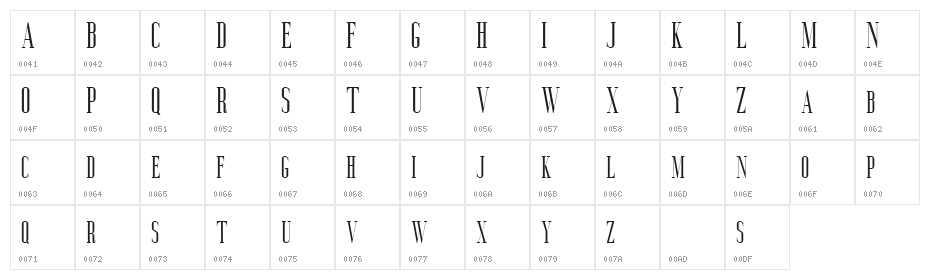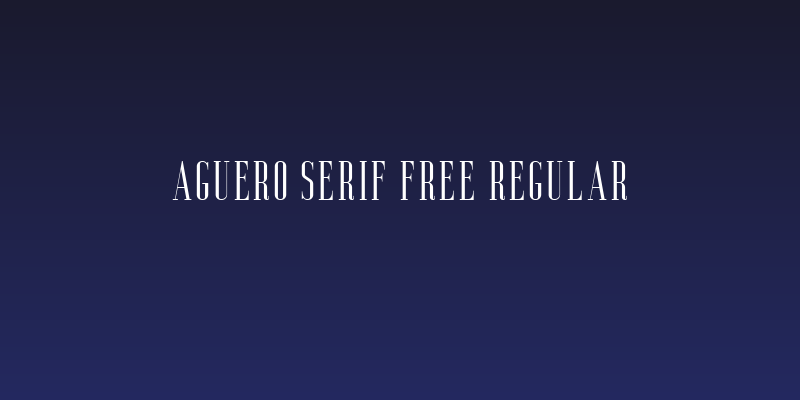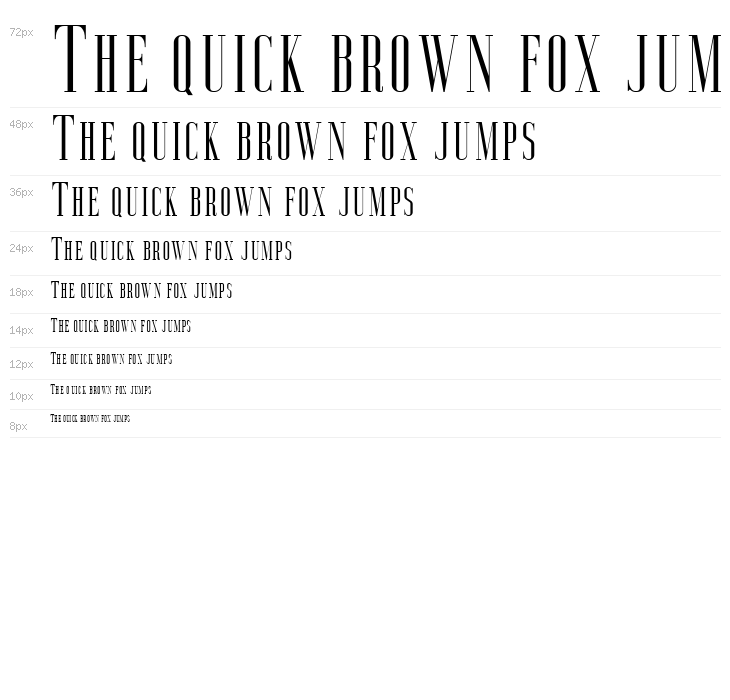
Aguero Serif Free Regular Font
Aguero Serif Free Regular Description
This font exhibits a refined and elegant serif style, characterized by its tall, narrow letterforms and high contrast between thick and thin strokes. The serifs are sharp and pronounced, adding a touch of sophistication and formality. The overall design is sleek and modern, yet it retains a classic appeal. The vertical emphasis and clean lines make it suitable for creating a strong visual impact. The spacing between characters is tight, enhancing the font's compact and efficient appearance. This font is versatile, making it ideal for a variety of design projects that require a touch of elegance and professionalism.
| Proposed Projects | Ideal for luxury branding, editorial design, wedding invitations, and high-end product packaging. |